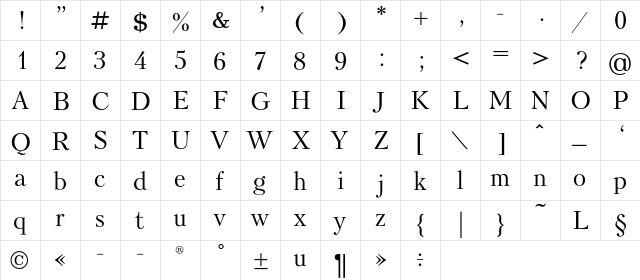
KudrashovC Regular
Design Context for KudrashovC Typeface
KudrashovC takes a measured approach to typography — its balanced proportions and neutral character make it a reliable workhorse for both digital and print work.